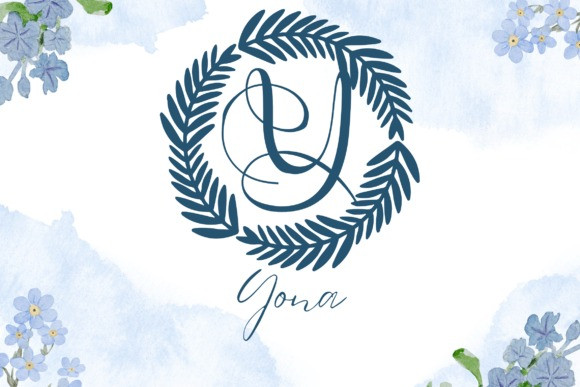
Laurelienne Monogram Font
Laurelienne Monogram Font turns simple initials into graceful laurel-inspired emblems that feel timeless, classic, and premium. The strokes are smooth and balanced, so letters stay clear at any size. Because counters remain open, tiny tags print crisp while large signage looks elegant and refined. Use it for wedding suites, boutique logos, keepsake gifts, wax seals, stationery, and luxury packaging. As a result, your designs gain a polished botanical charm that looks gift-ready right away.